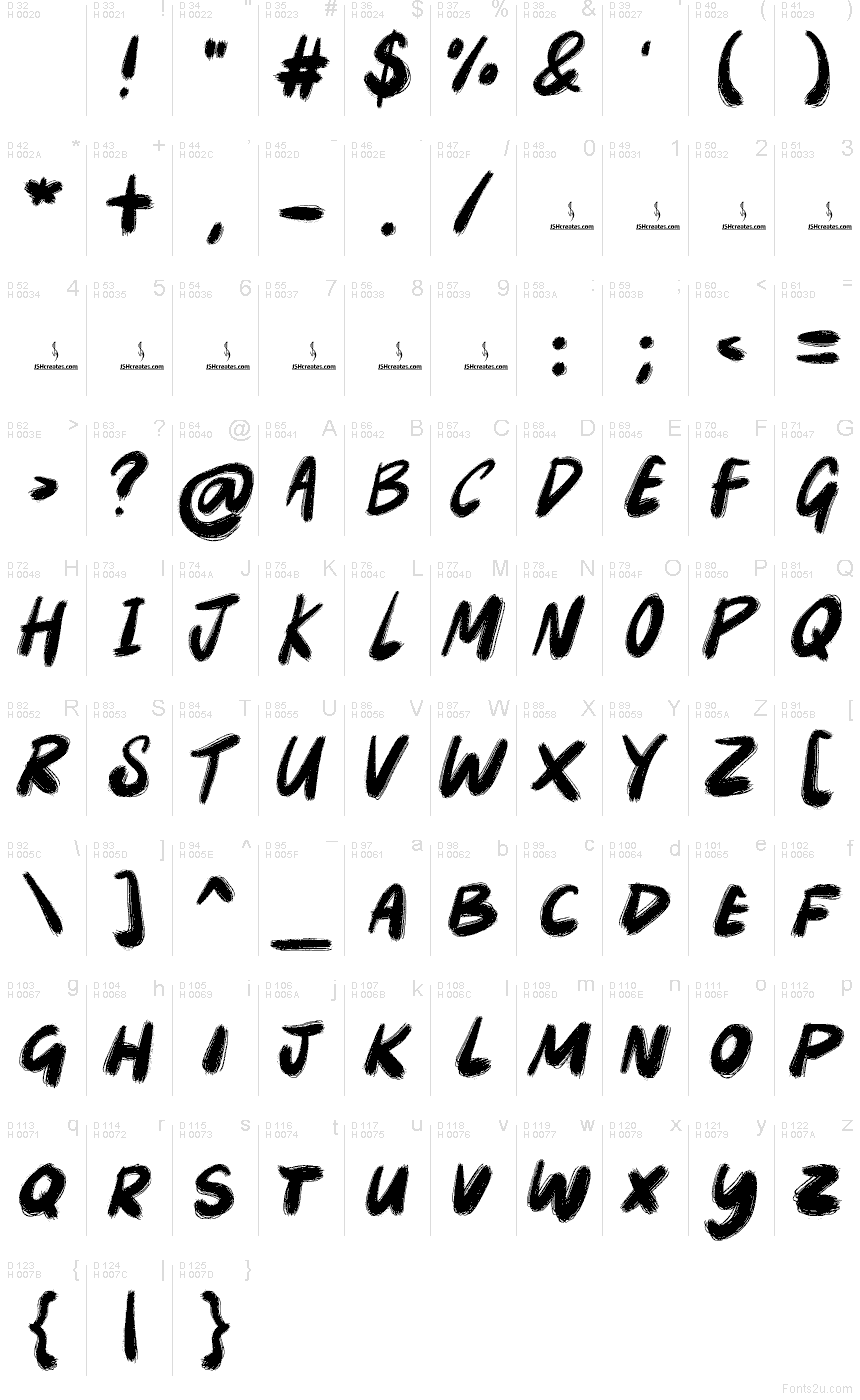
Grease High
Grease High font by JSH creates is a free brush typeface that hits the page like a streak of wet ink and asphalt. Its rough, dragged strokes and slightly tilted letters feel nervous and electric, as if they were scrawled fast across a poster wall. The texture is dense and gritty, with feathered edges that give every word a sense of motion and noise.
Using Grease High, you can push attitude to the front on music covers, streetwear branding, festival posters, extreme sports graphics, YouTube thumbnails, and bold social media promos. This free font shines when set big and tight, letting the brush texture fill the frame. Pair it with a clean, narrow sans serif in small text to keep the message sharp while Grease High does the shouting.